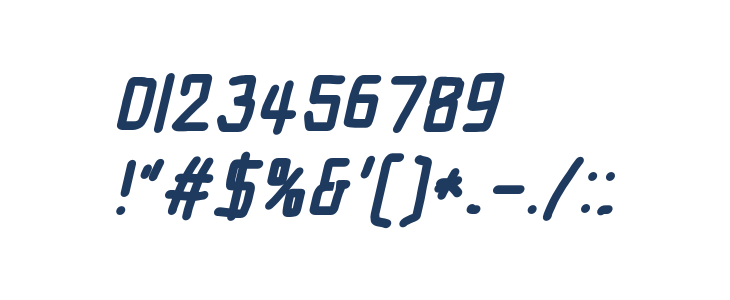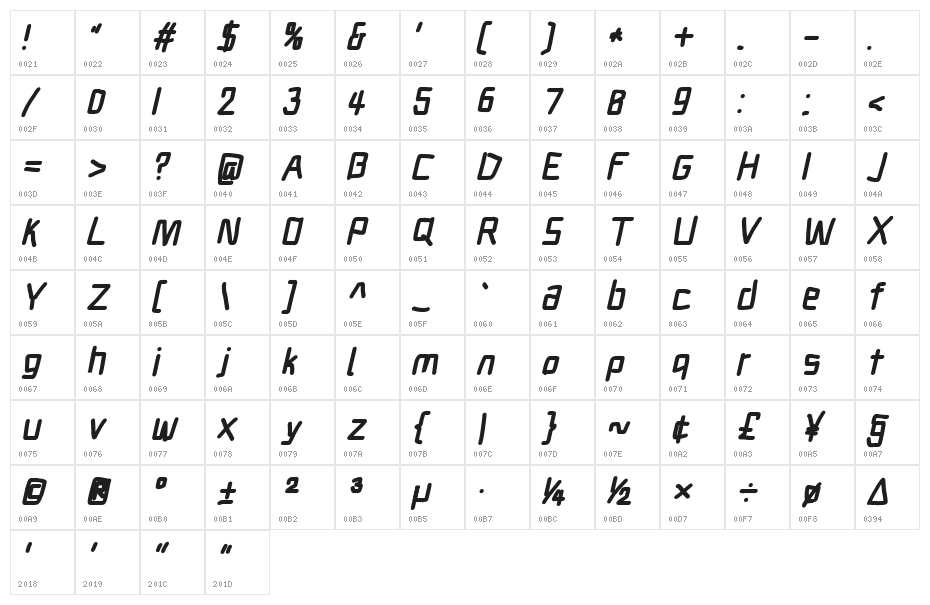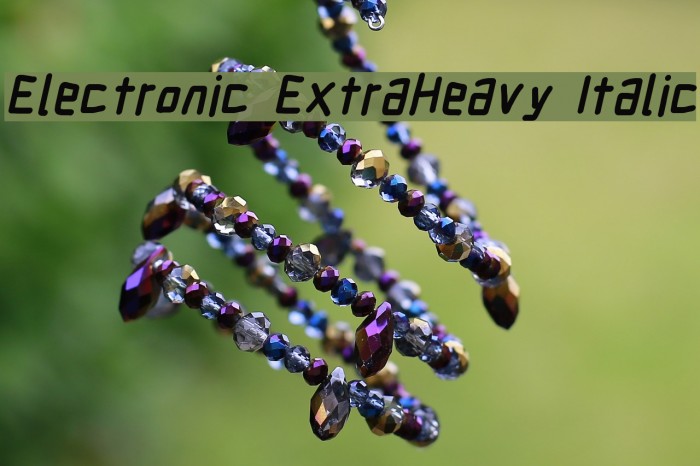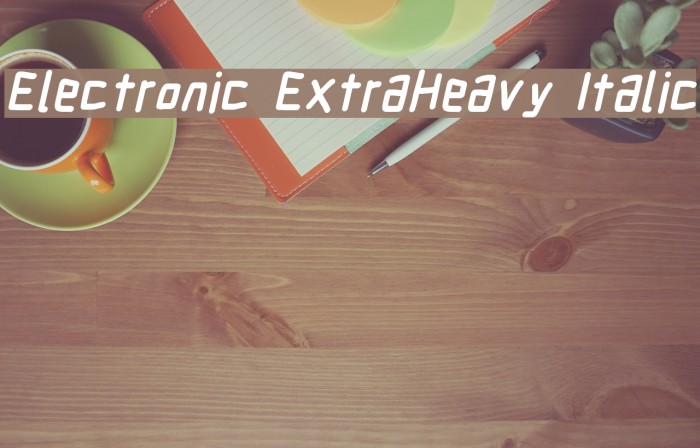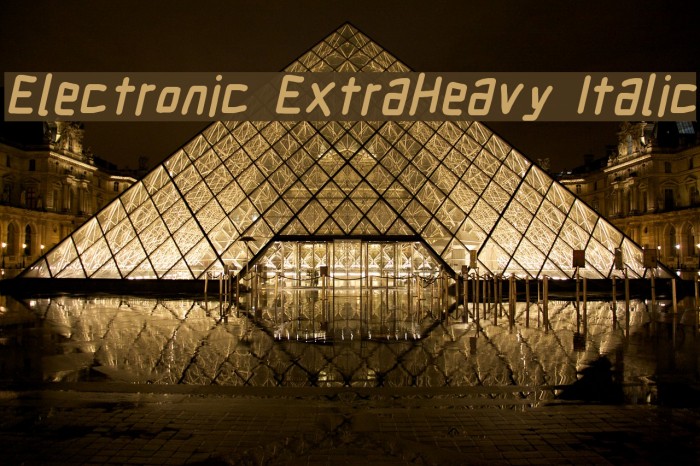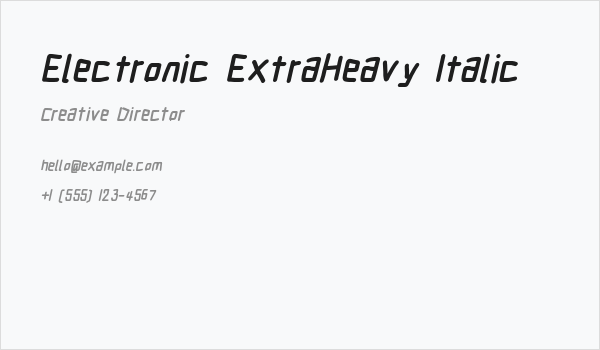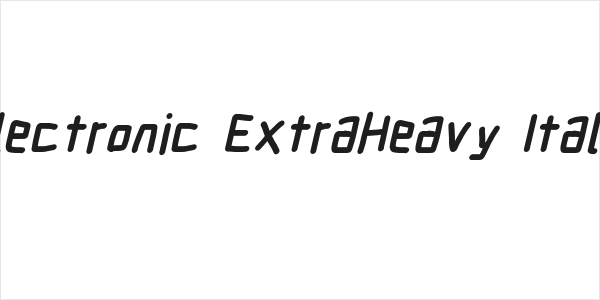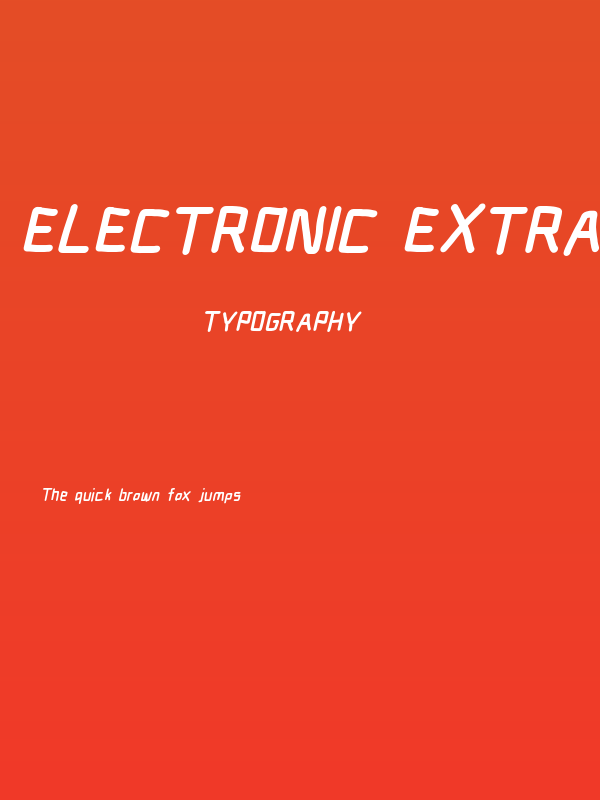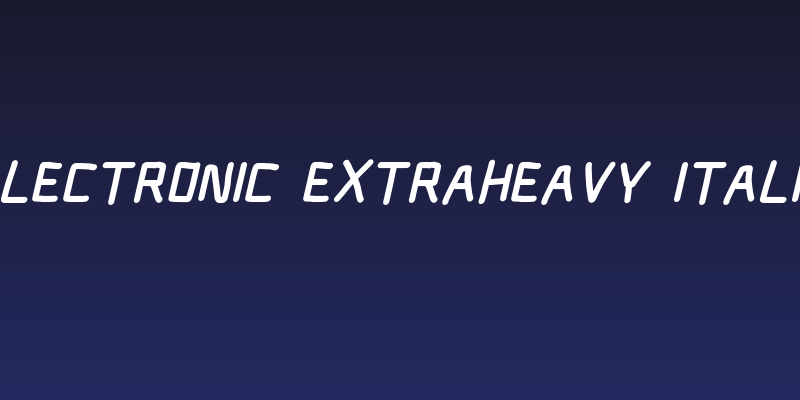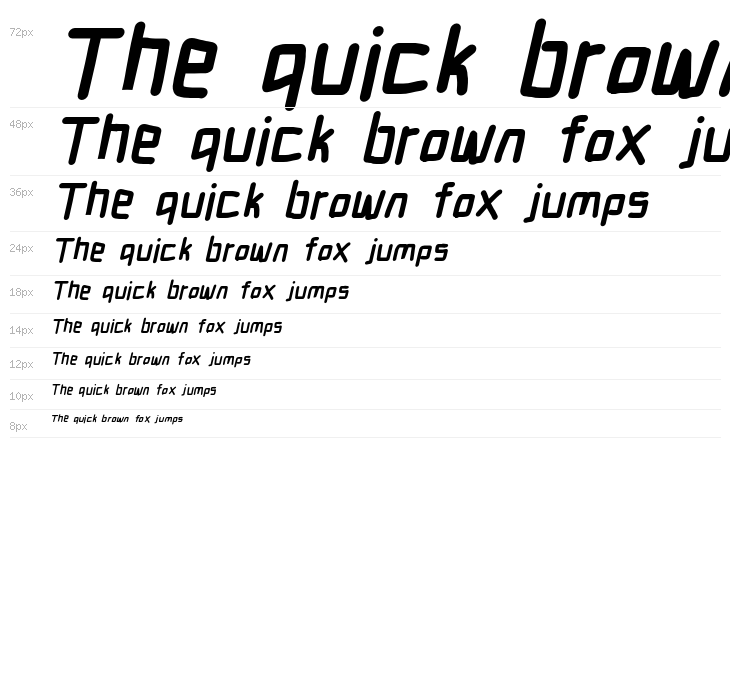
Electronic ExtraHeavy Italic Font
Electronic ExtraHeavy Italic Description
This font features a bold and dynamic style with a distinct italic slant, giving it a sense of motion and energy. The characters are uniformly thick, contributing to a heavy appearance that commands attention. The design is modern and slightly futuristic, with rounded edges that soften the overall look. The uppercase and lowercase letters maintain a consistent style, while the numerals and special characters are clearly defined and easy to read. This font is ideal for projects that require a strong visual impact.
| Proposed Projects | Ideal for branding, advertising, posters, and digital media where a strong, modern presence is needed. |